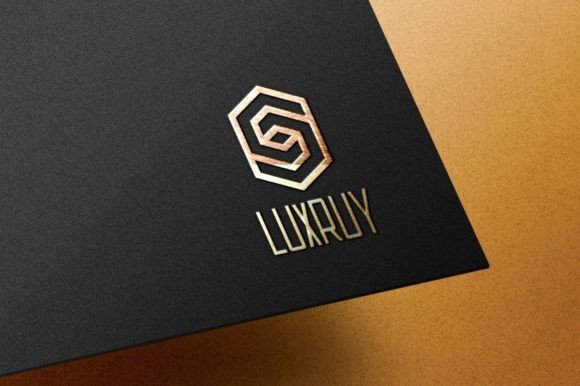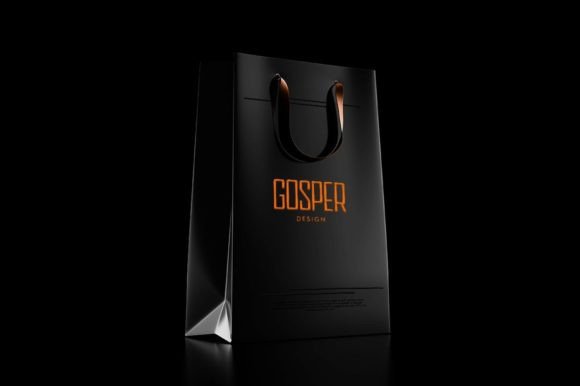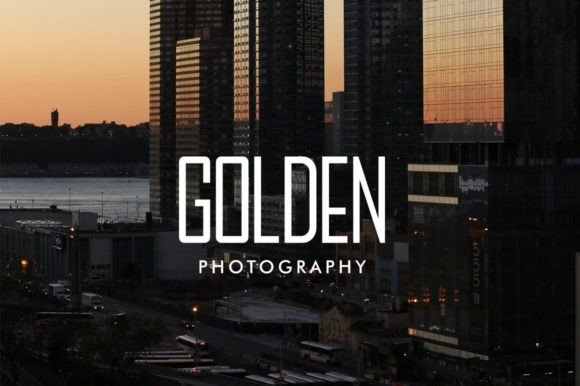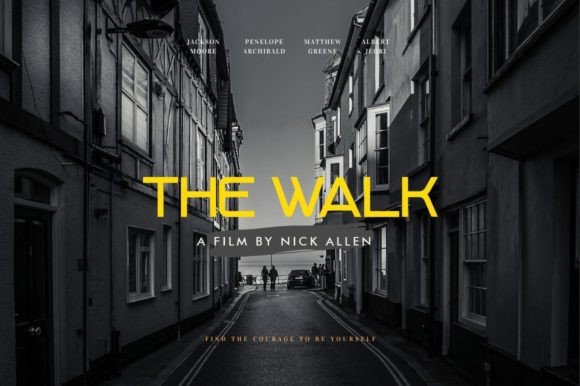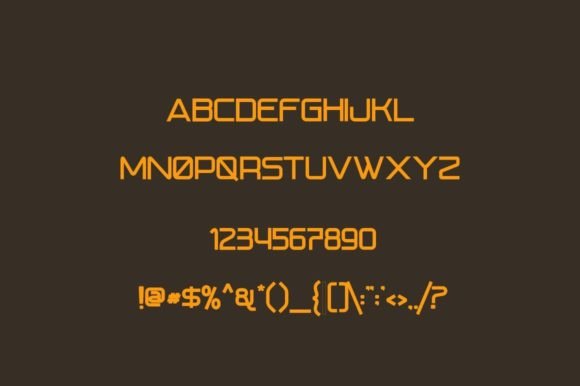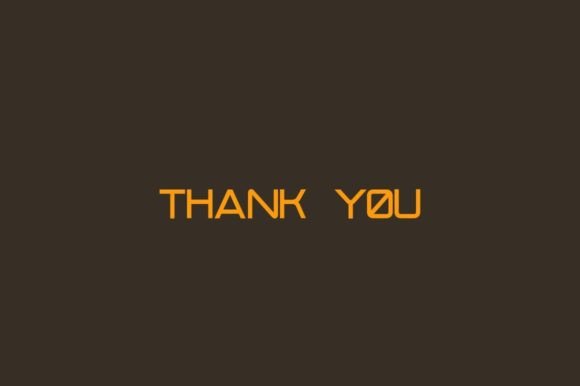
Discover the Futuristic Fedora Font: Elevate Your Designs with a Modern Twist
In the realm of typography, fonts play a pivotal role in defining the aesthetic and tone of any design project. Whether you’re crafting a logo, creating a brand identity, or working on a digital project, the choice of font can significantly influence how your message is received. Among the myriad of fonts available, the Fedora Font stands out for its unique blend of modernity and versatility. In this article, we’ll delve into the characteristics of the Fedora Font, its uses, and why it has become a go-to choice for designers and crafters alike.
What is Fedora Font?
Fedora Font is a sans-based font that boasts a distinctive lowercase style, setting it apart from more traditional fonts. Its design is characterized by clean lines, a minimalist approach, and a futuristic vibe that instantly elevates the look of any design project. The font’s sleek and modern appearance makes it an ideal choice for projects that demand a contemporary edge.
Key Features of Fedora Font
- Unique Lowercase Design: The font’s lowercase letters are specially designed to offer a fresh and modern look, making it perfect for logotypes and branding projects.
- Sans-Based: The clean and straightforward sans serif design ensures that the font remains legible across various platforms and sizes.
- Versatility: Fedora Font’s neutral yet stylish design allows it to be used across a wide range of projects, from digital media to print.
- Legibility: Despite its futuristic design, the font maintains high legibility, ensuring that your message is conveyed clearly.
Why Choose Fedora Font?
Choosing the right font for your project can be daunting, but Fedora Font offers several advantages that make it an attractive option:
- Modern Aesthetic: For projects that require a modern and forward-thinking look, Fedora Font delivers a design that feels contemporary and engaging.
- Branding and Logotypes: The unique style of Fedora Font, especially its lowercase letters, makes it exceptionally suitable for logotypes and branding projects that need to stand out.
- Easy to Pair: Its neutral design makes it easy to pair with other fonts for projects that require contrast or complementary typography.
How to Use Fedora Font Effectively
To maximize the potential of Fedora Font, consider the following tips:
- Use for Logotypes and Branding: Take advantage of its unique lowercase design to create memorable logotypes and brand identities.
- Experiment with Sizes: While Fedora Font remains legible at various sizes, experimenting with different sizes can help achieve the desired emphasis and hierarchy in your design.
- Combine with Other Fonts: Don’t be afraid to pair Fedora Font with other fonts to create visual interest and contrast in your designs.
- Consider Line Spacing: Ensure adequate line spacing to maintain readability, especially in body text.
Fedora Font offers a refreshing take on sans serif typography, providing designers and crafters with a tool to infuse their projects with a modern and futuristic feel. Its unique design, versatility, and ease of use make it an excellent choice for a wide range of applications. Whether you’re working on a branding project, creating a digital product, or simply exploring new typography options, Fedora Font is sure to inspire and elevate your designs.
Embrace the future of typography with Fedora Font and discover how this distinctive font can transform your creative projects into visually stunning and impactful designs.